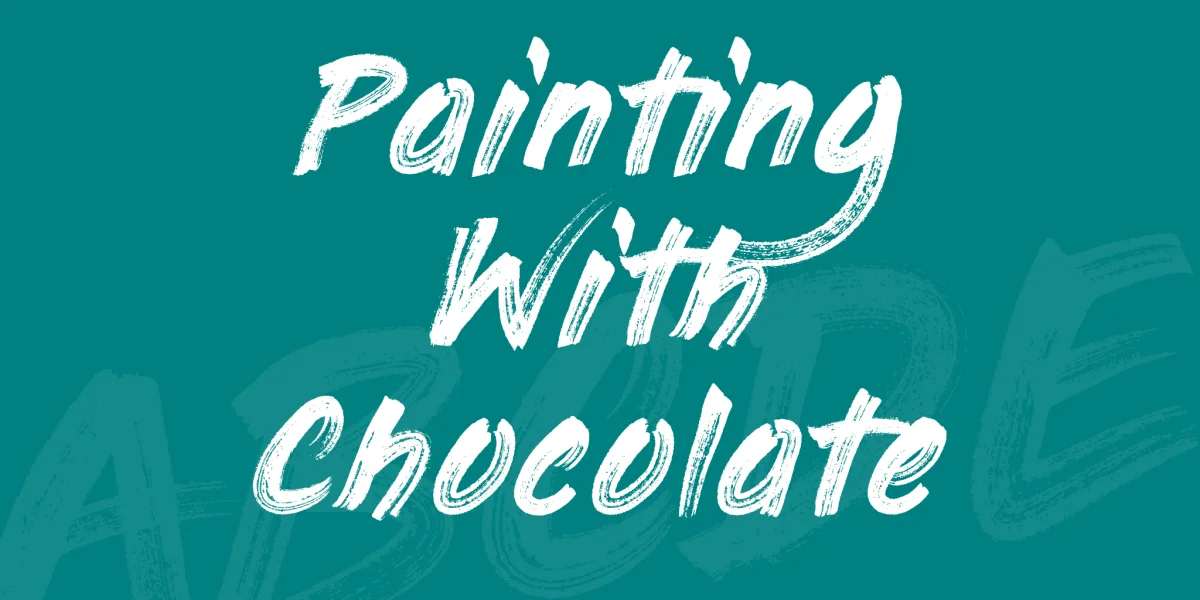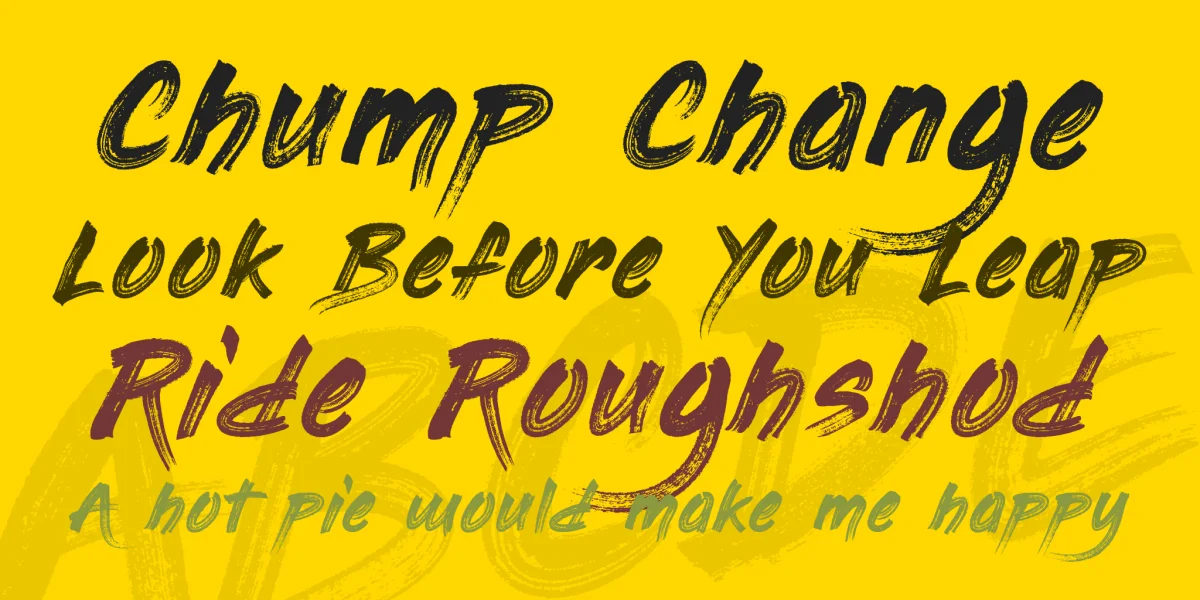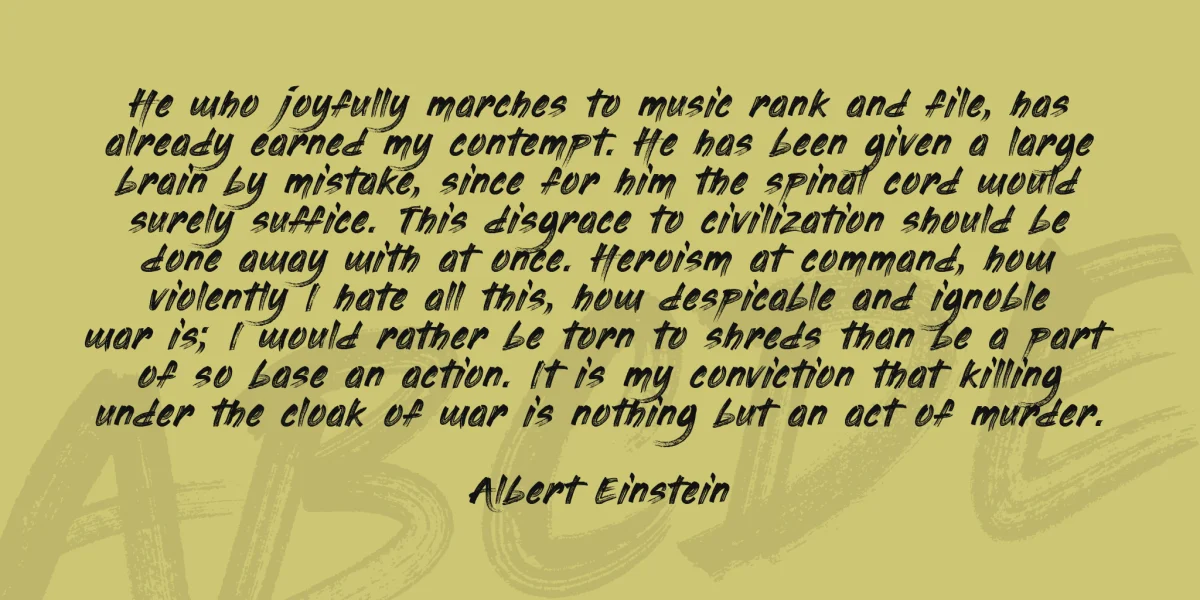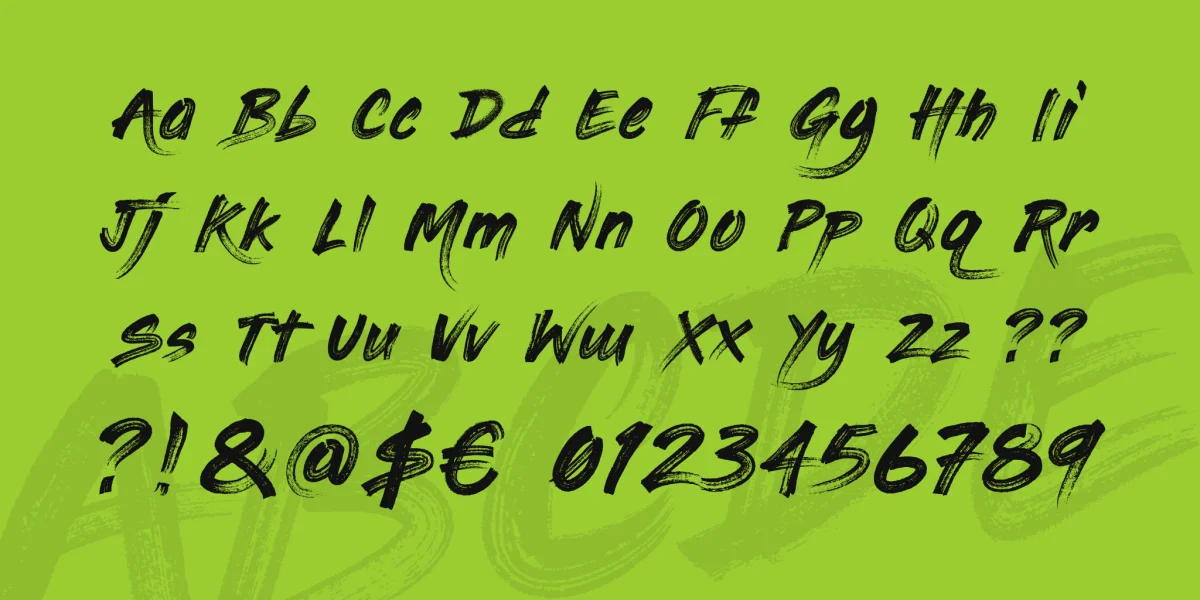
Who doesn’t love chocolate? And who wouldn’t like to paint with chocolate once? That’s exactly what we thought at mooze. As a printing company we work with fonts every day and that inspired us to create our own. Painting with chocolate is a funky font created for you and free to use. Not just once but every day.